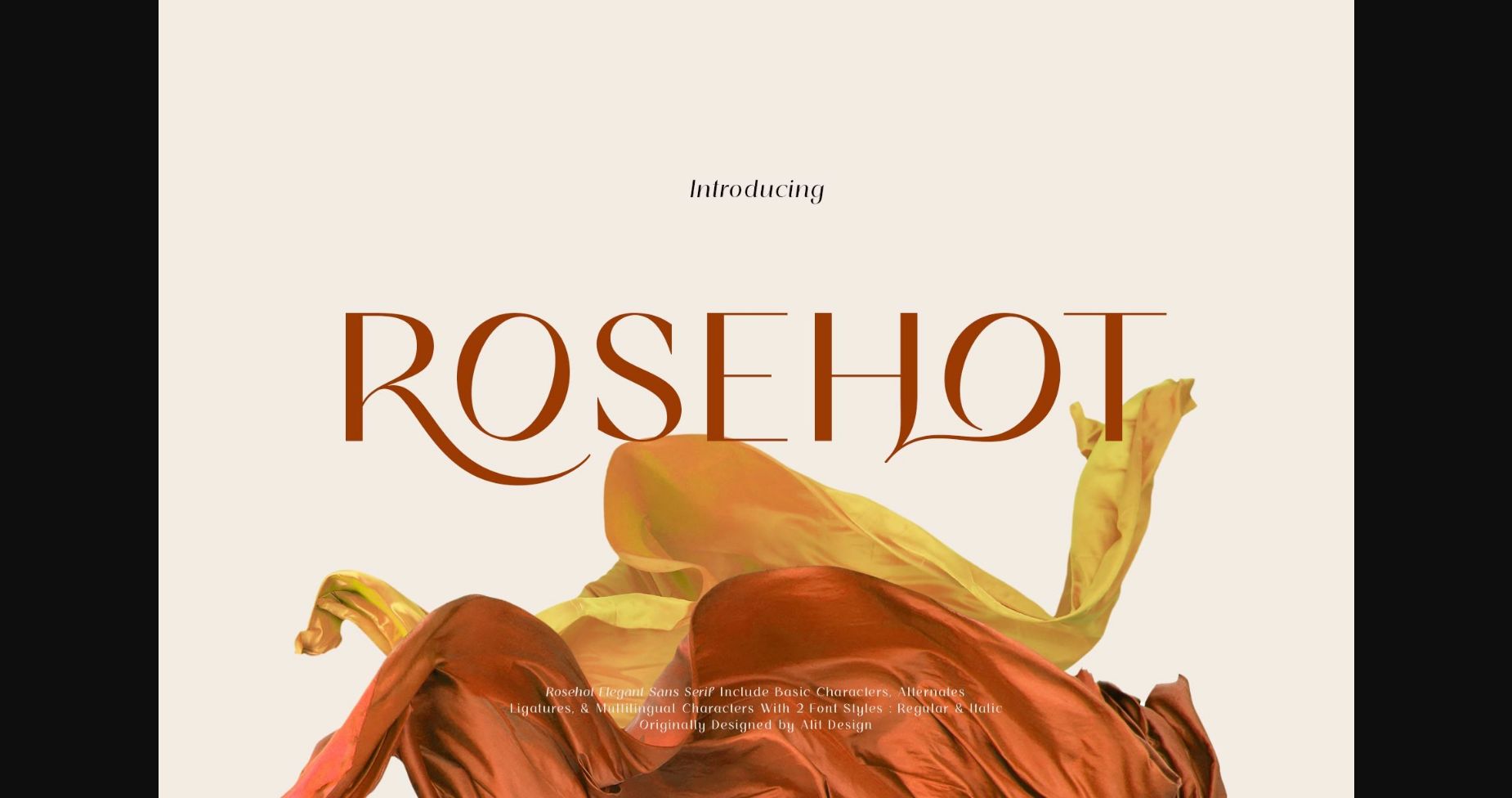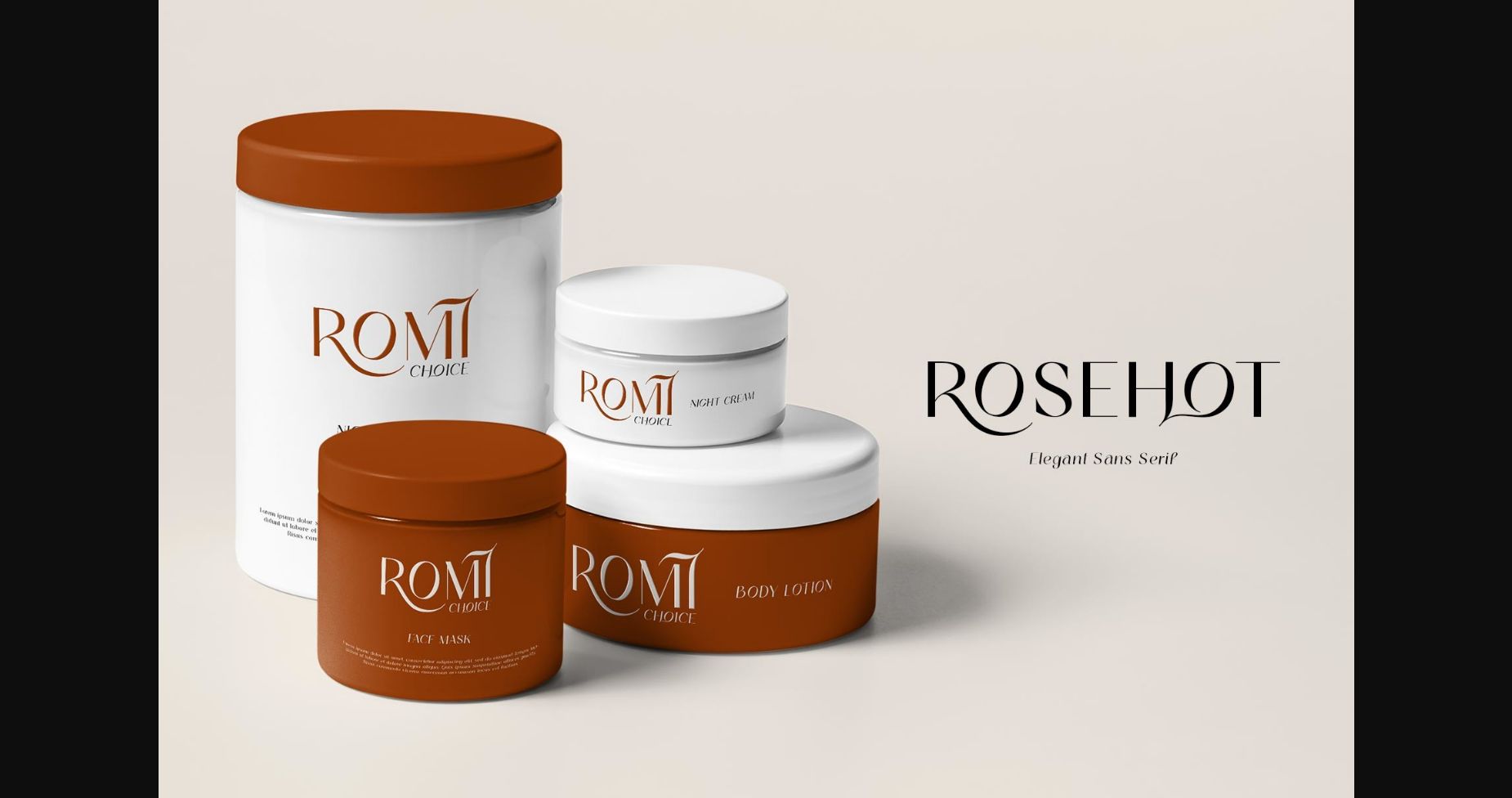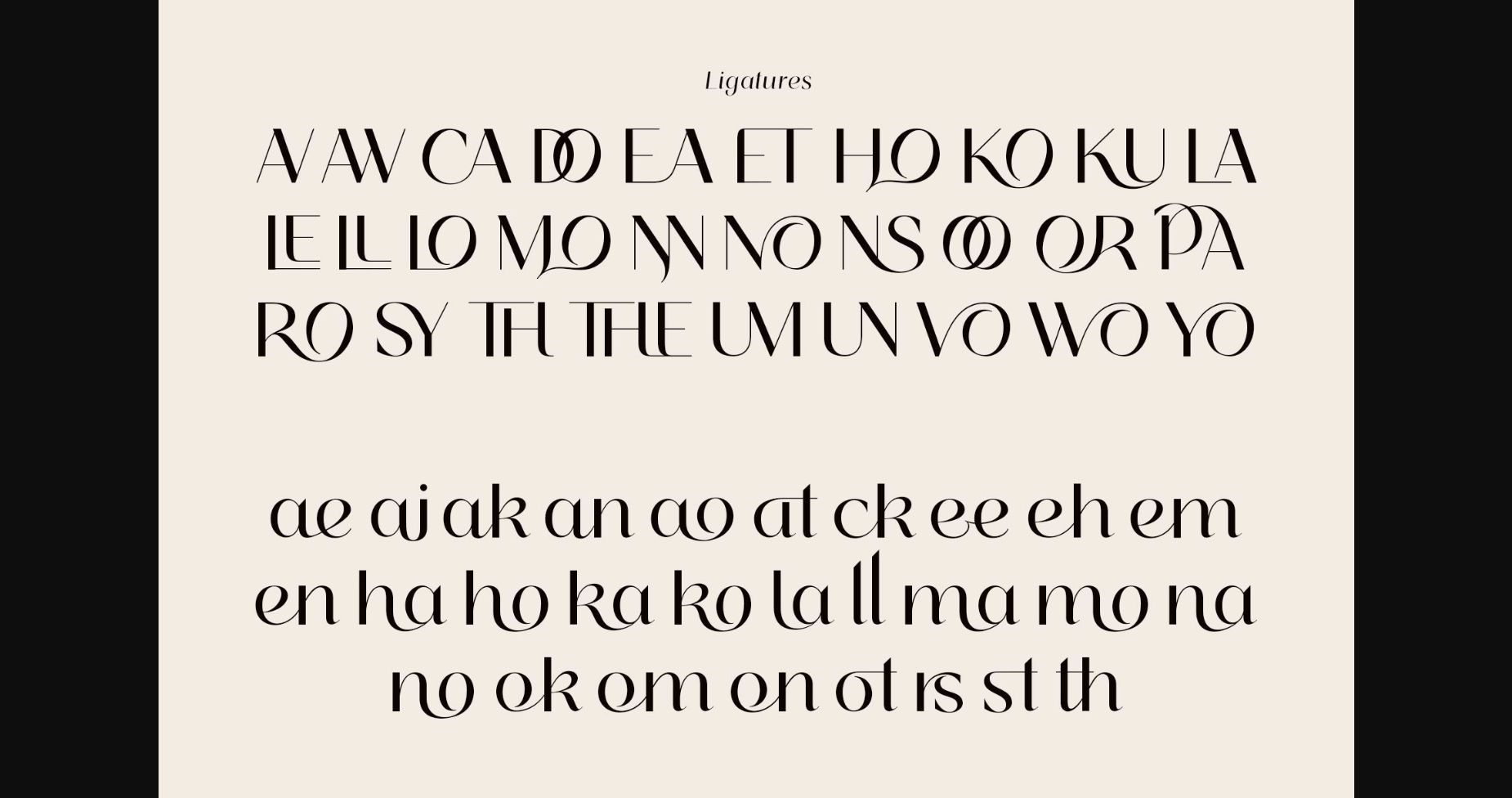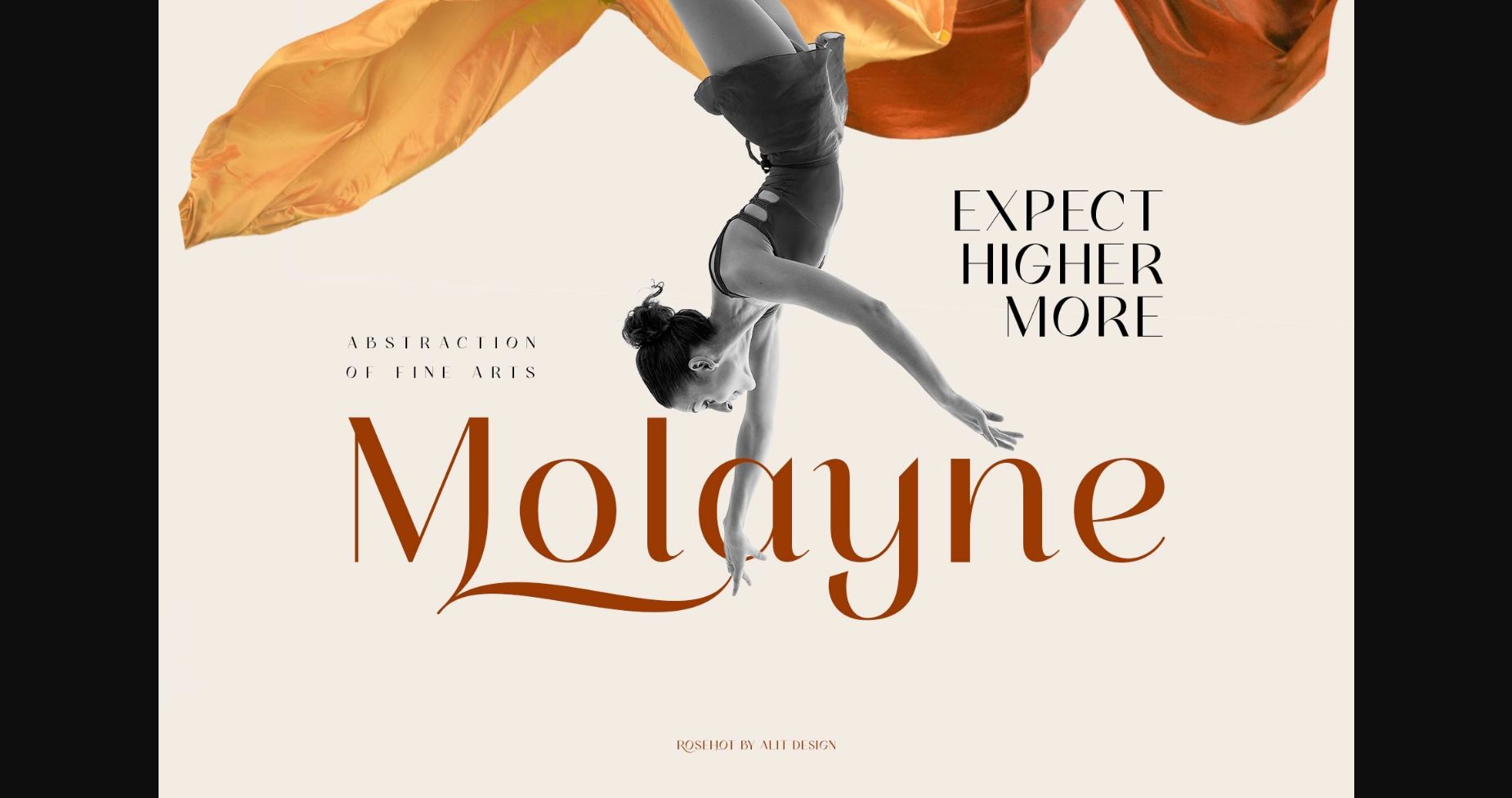
About Rosehot Font
Rosehot is an elegant sans serif font.
The Rosehot typeface is an elegantly themed font that has a dynamic sans serif style. The details of the “Rosehot” are very smooth and flow to create unique and beautiful curves. This typeface is perfect for many creative projects, especially those with an elegant and smooth concept